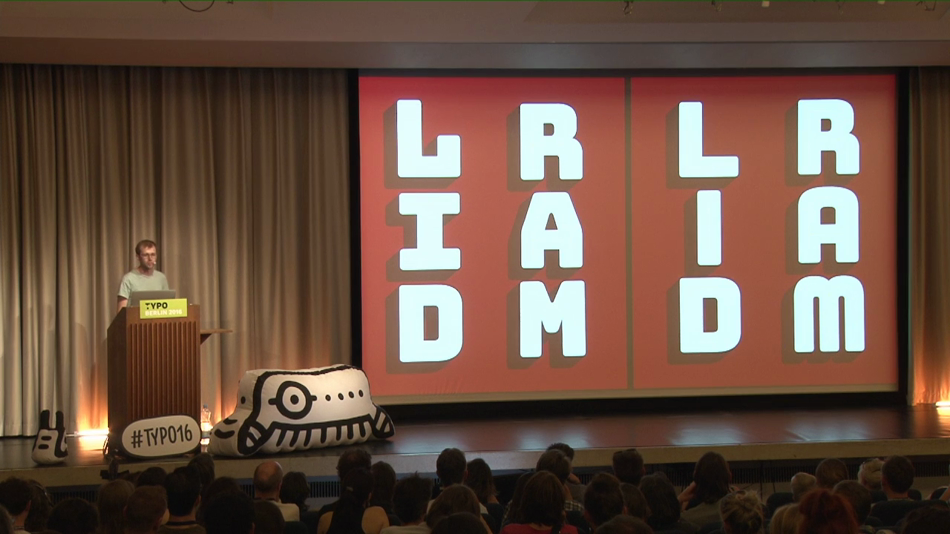
Backasswards!
David Jonathan Ross
Reversed-stress typefaces occupy a funny little corner of the world of typeface design. These typefaces flip letter-drawing conventions on their head with jarring, amusing, and sometimes even useful results. These typefaces are often associated with the Wild West, but they have much more to offer than the novelty of gunslingers and swinging saloon doors. This talk will explore the history of the genre, take a closer look at some particularly interesting specimens, and detail the drawing challenges that arise when the thick parts get thin and the thin parts get thick.
David Jonathan Ross
Type Designer(Los Angeles)
David Jonathan Ross draws letters of all shapes and sizes for custom and retail typeface designs. He joined The Font Bureau in 2007, and his typefaces include Manicotti and Trilby, reversed stress slabs; Condor, a high contrast sans; Turnip, a rugged bookface; and Input, an extensive... Read More